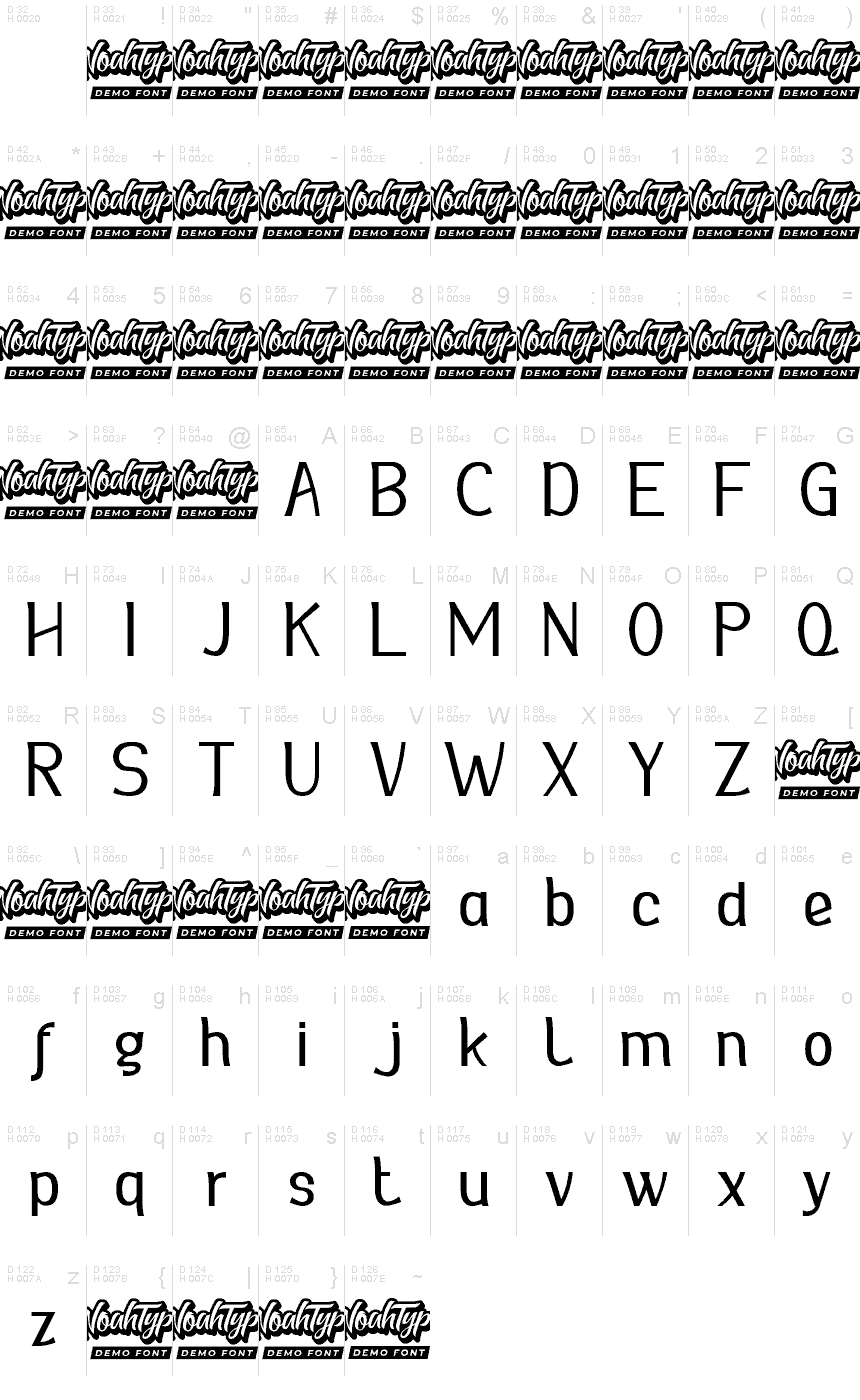
Your Everyday Demo
Your Everyday font by Noah Type is a modern and professional sans serif with structured and clean elements. The letters seem quite elegant with well-defined lines and smooth transitions between corners. This free geometric font has all the characters, numbers, punctuation symbols to allow it to be used on both short and long writing texts.
The versatility of this font allows its use in title designs, headings, subheadings, magazines, books covers, newspapers, inside text for books and catalogs. Also try it in academic publications including school projects or essays as well as business applications like invoices or resumes.